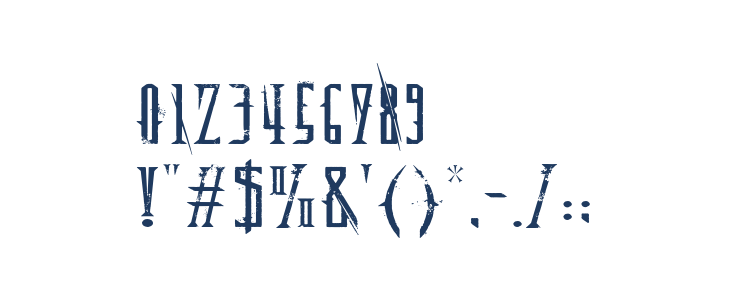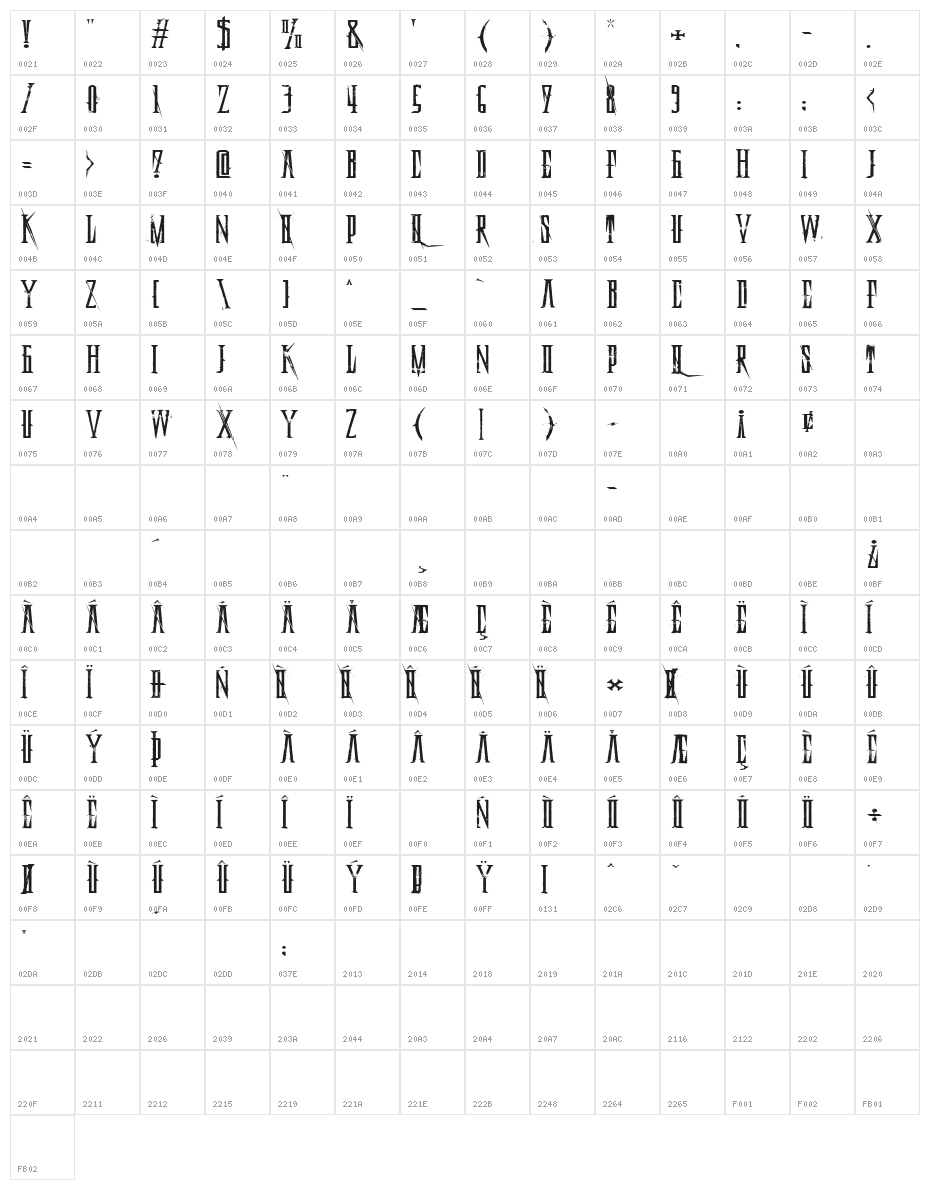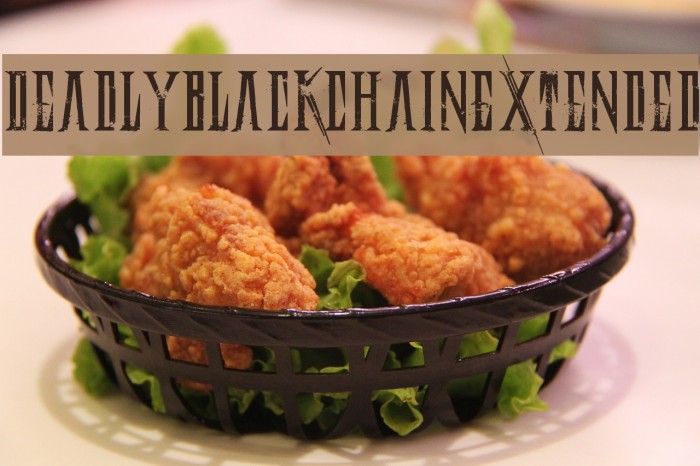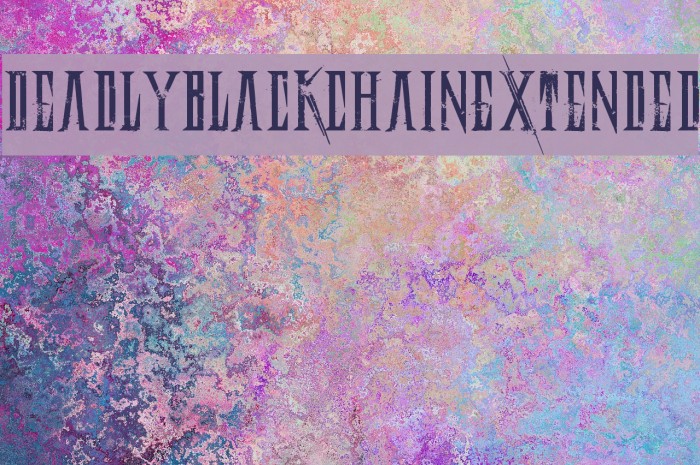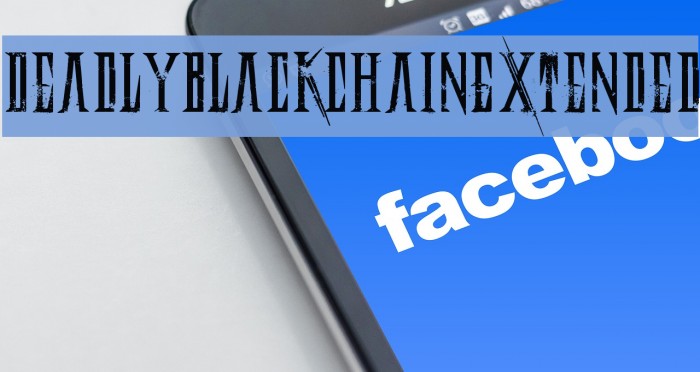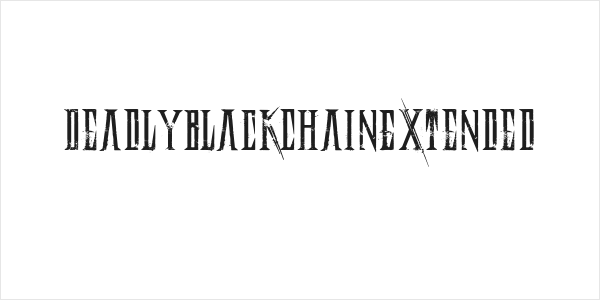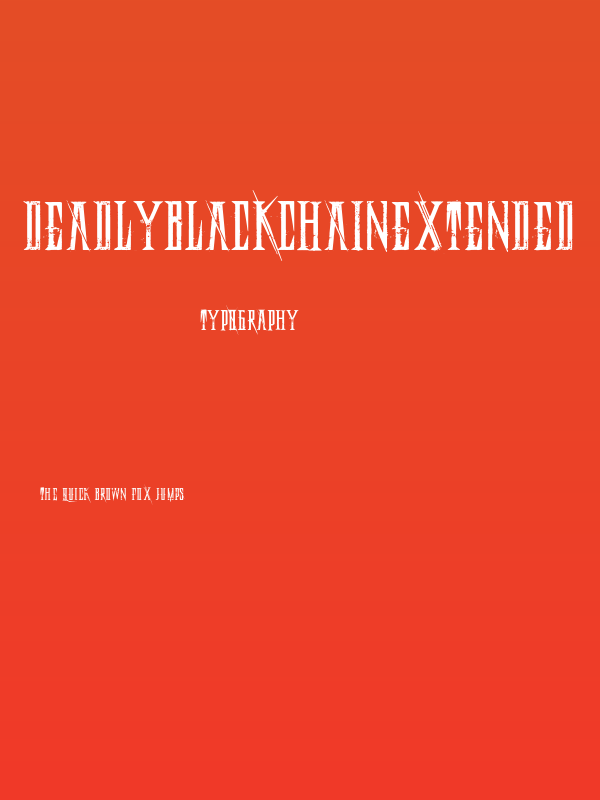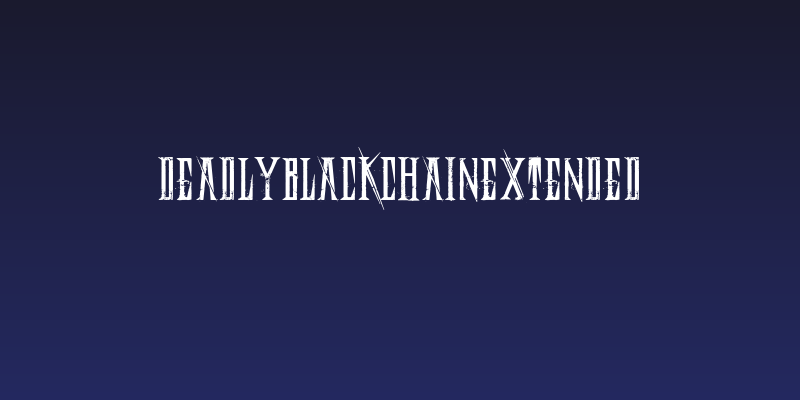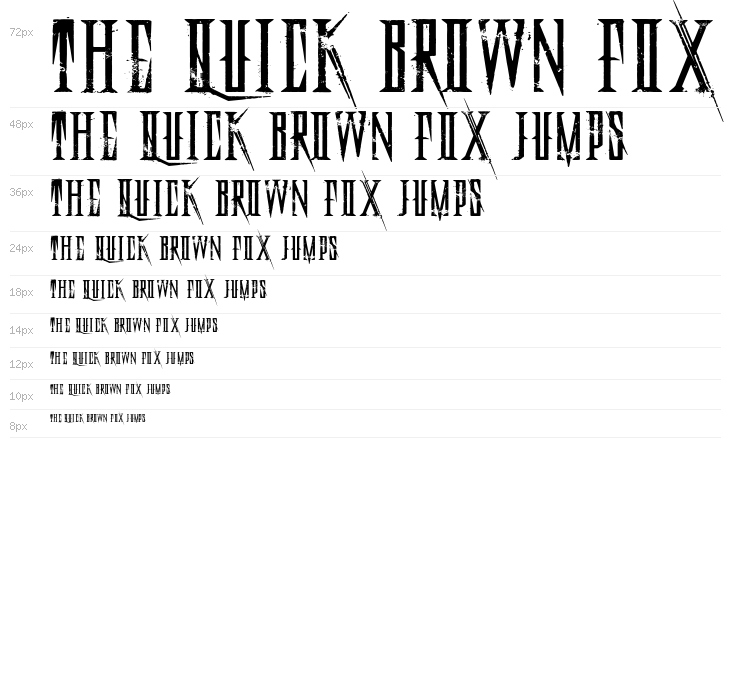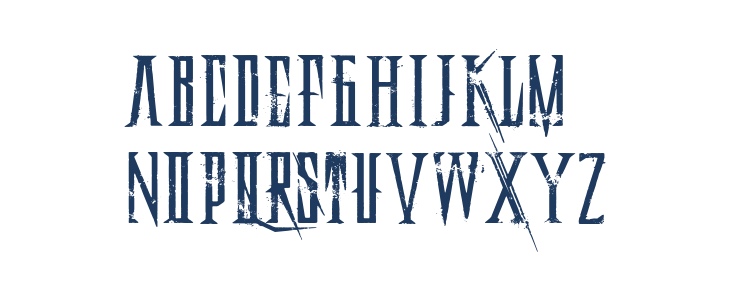
DeadlyBlackChainExtended Font
DeadlyBlackChainExtended Description
This font features a bold, distressed style with sharp, angular edges and a gritty texture that gives it a rugged, rebellious look. The uppercase and lowercase letters are tall and narrow, with exaggerated serifs that add to the dramatic appearance. The numbers and special characters maintain the same distressed aesthetic, making the font cohesive across all elements. The overall design is reminiscent of a gothic or industrial theme, suitable for projects that require a strong, impactful visual statement.
| Overall Style | Gothic, Industrial |
| Proposed Projects | Ideal for album covers, movie posters, video game titles, and branding for edgy or alternative products. |